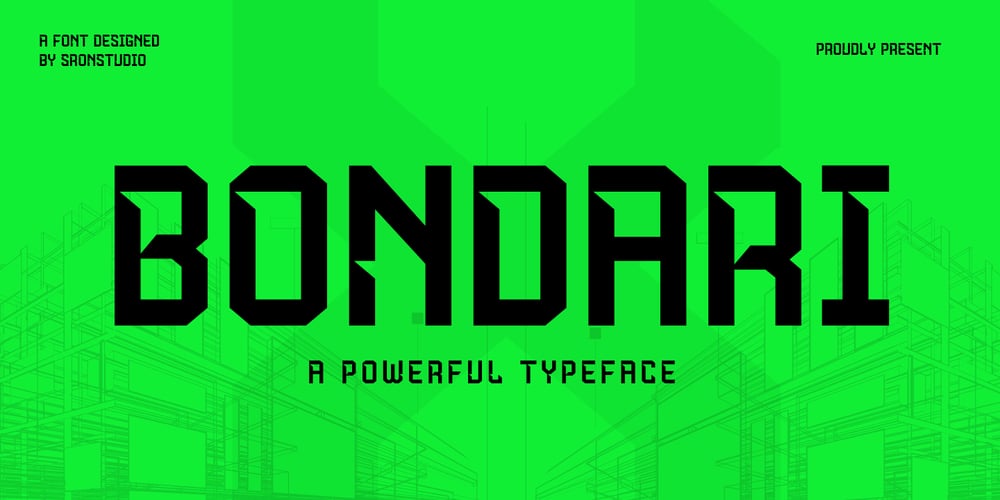
Bondari Font Family was designed by Muhamad Yusron Billah and published by Sronstudio. Bondari contains 1 styles and family package options. “Bondari” is a font that embodies boldness, power, and strength. With its robust letterforms and commanding design, it makes a striking statement in any project. Ideal for branding, headlines, or any design that requires a strong and impactful presence, “Bondari” exudes a sense of unwavering force and authority.